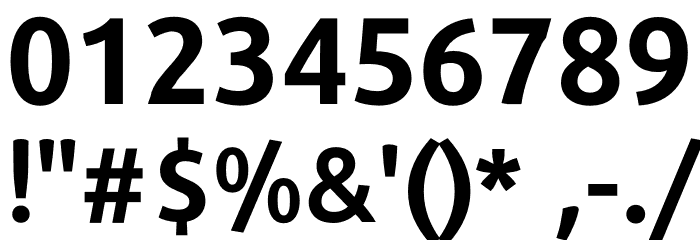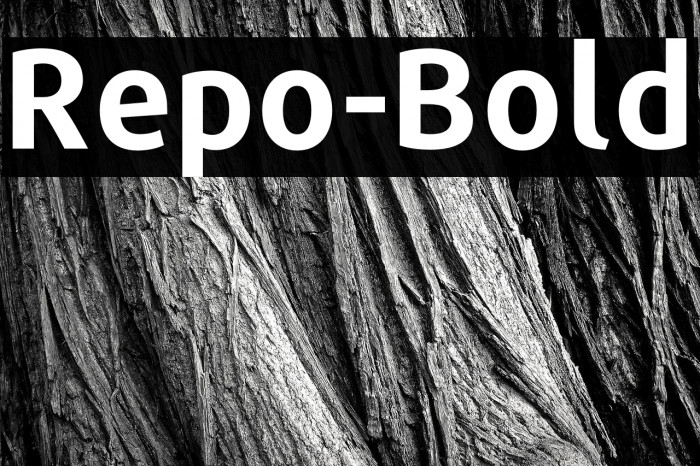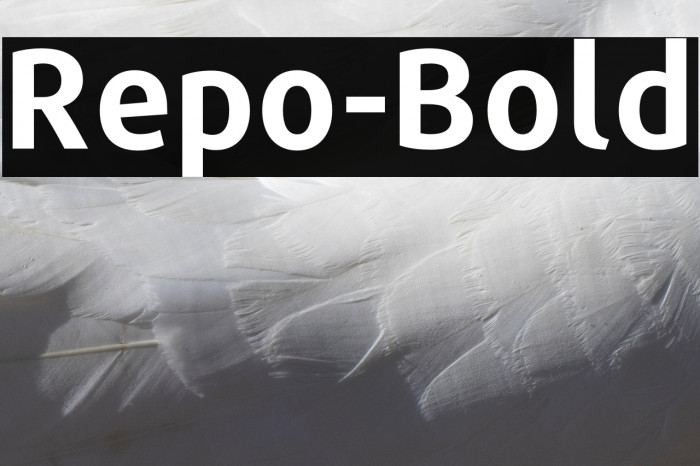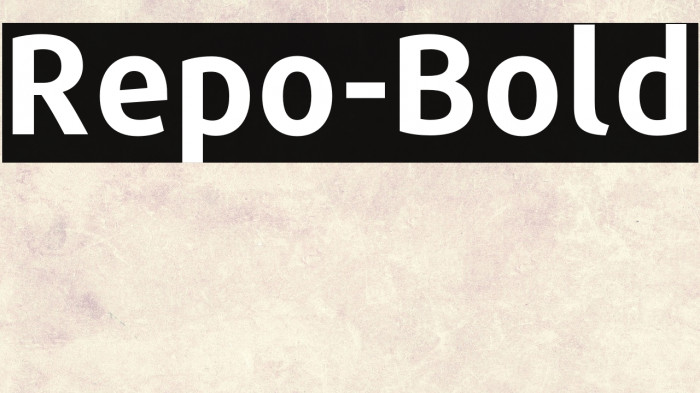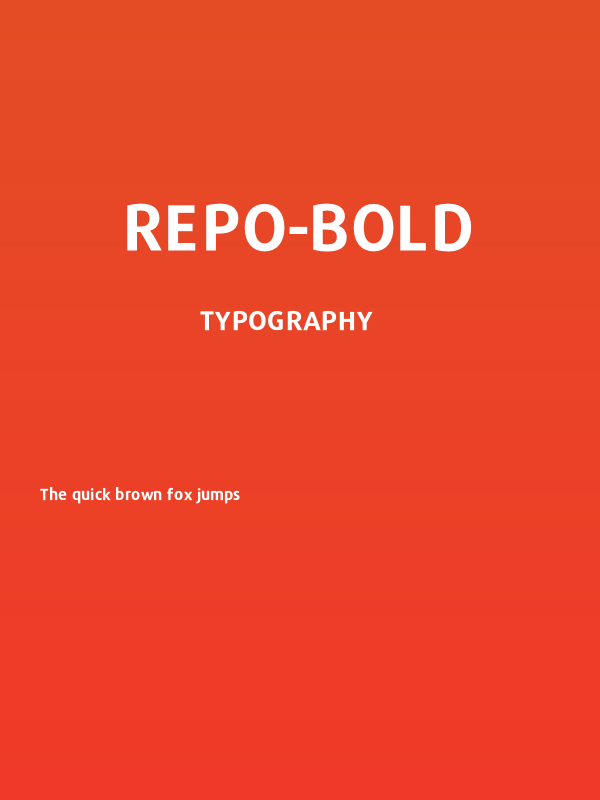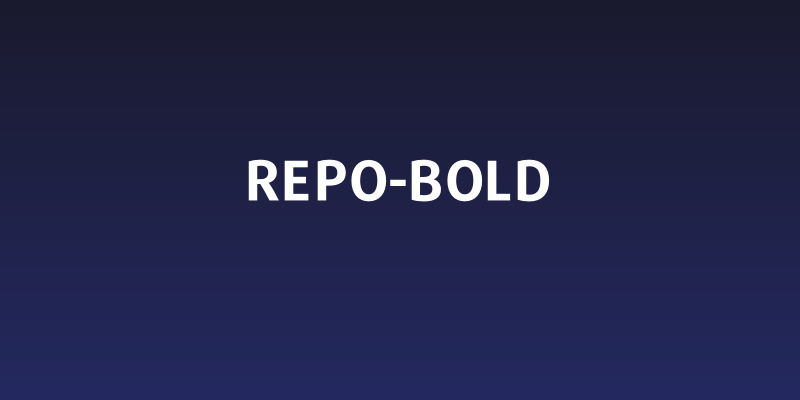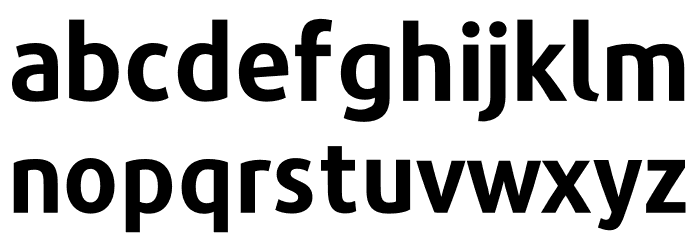
Repo-Bold Font
Repo-Bold Description
This font features a bold and modern sans-serif design, characterized by clean lines and a strong presence. The uppercase and lowercase letters are well-proportioned, with a consistent stroke width that enhances readability. The numerals are clear and distinct, making them suitable for various applications. Special characters are included, maintaining the font's cohesive style. Its simplicity and clarity make it versatile for both digital and print media.
| Proposed Projects | Ideal for branding, advertising, headlines, and digital interfaces where clarity and impact are essential. |